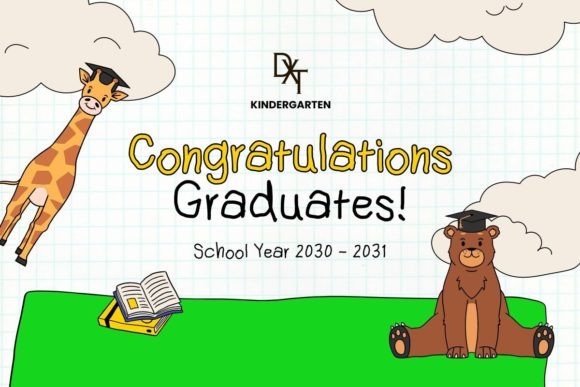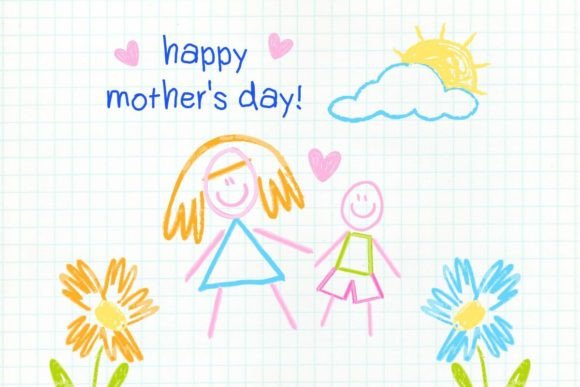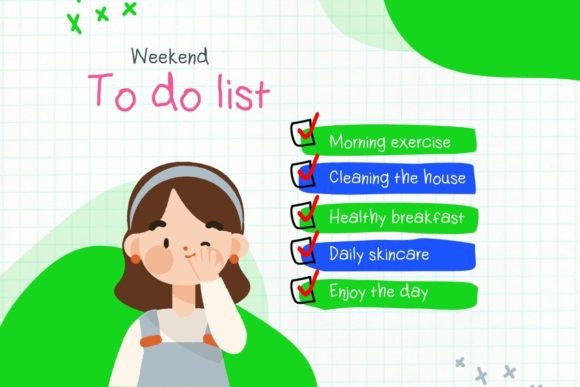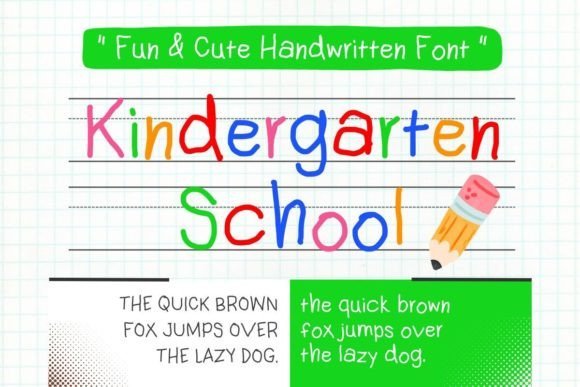
Introduction to Kindergarten School Font
Unleash your creativity with our Cute Handwritten Font.
Ideal for bold and adventurous souls, this Kindergarten Font adds a playful twist to your projects Perfect for preschool crafts, kids’ art, and school activities, our Preschool Font effortlessly captures the whimsy of childhood.
Key Features of Kindergarten School Font
Why Choose Kindergarten School Font?
Kindergarten School Font offers exceptional quality and versatility, making it a valuable addition to your design toolkit. Whether you’re creating for personal projects or commercial use, Kindergarten School Font delivers professional results.